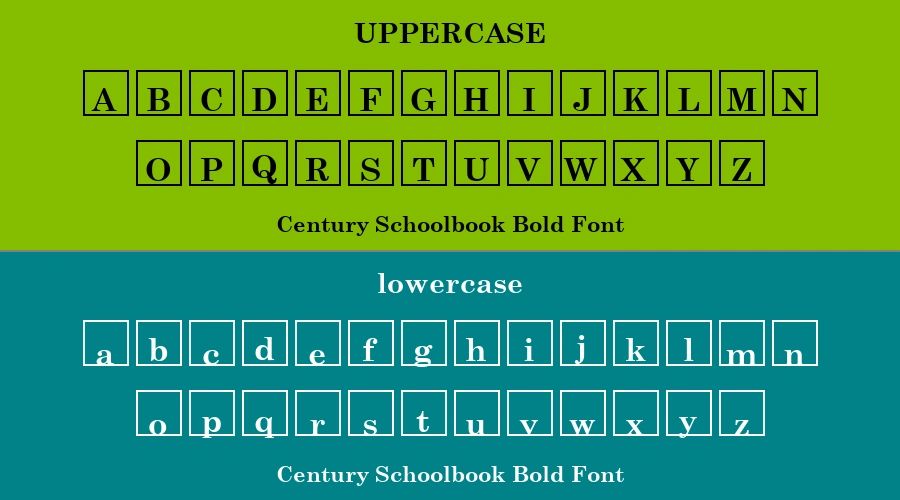
About Century Schoolbook Bold Font
Century Schoolbook Bold Font stands out for its distinctive combination of humanist proportions and message hierarchy. Ideal for magazine layout, it provides the scalability and design innovation that professional projects demand. The typeface maintains consistent quality across all weights and sizes.
Key features include refined rounded corners and practical standard ligatures, enhancing typographic expression. In brand manuals applications, Century Schoolbook Bold Font demonstrates exceptional weight distribution. The loop structure and artistic influences contribute to its distinctive character and professional appeal.